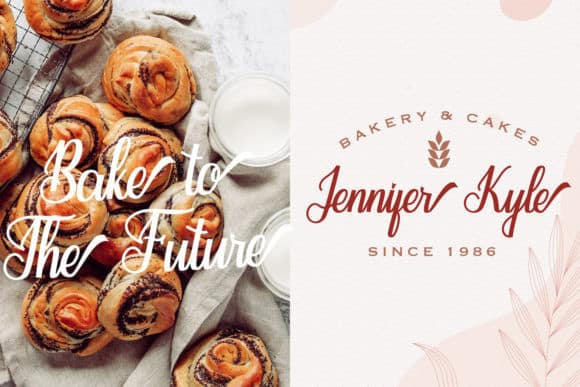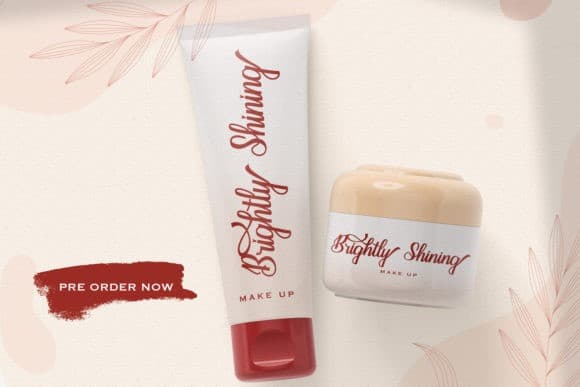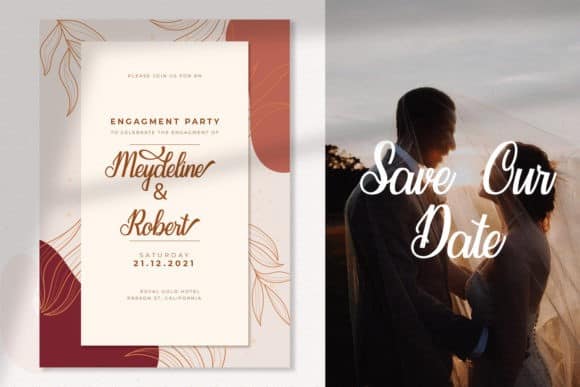
Introducing Seindah Cinttya Calligraphy Font, a modern bounce calligraphy font with alternates and ligatures. This font is designed and shared by StringLabs. It’s an exquisite handwritten font, masterfully designed to become a true favorite. Saulifriend Calligraphy Font maintains its classy calligraphic influences while feeling contemporary and fresh. Fall in love with it and bring your projects to the highest levels!